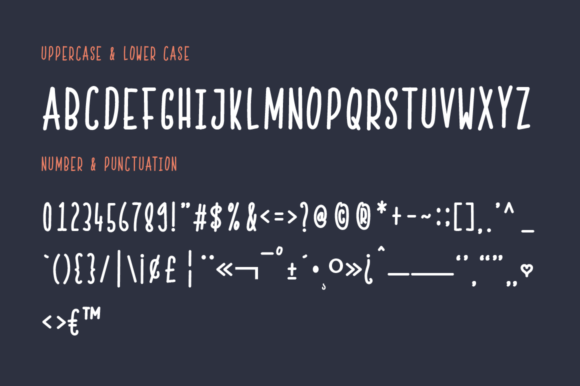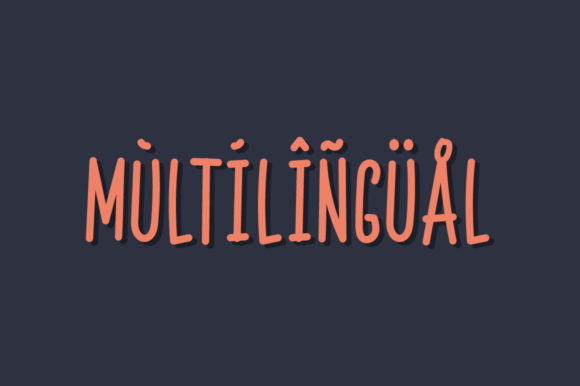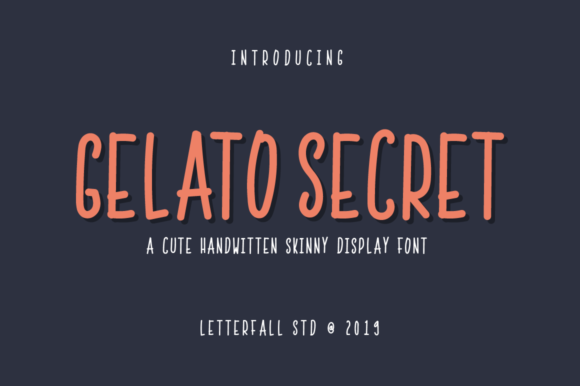
Gelato Secret Font
The Gelato Secret is a skinny handwritten font designed by Letterfall Std in Indonesia. We wanted to create the most generic, readable and finely balanced handwritten font, to work well in every kind of design.
This condensed sans-serif will look so fun on your cards & invites, and it works perfectly when pairing with other fonts.